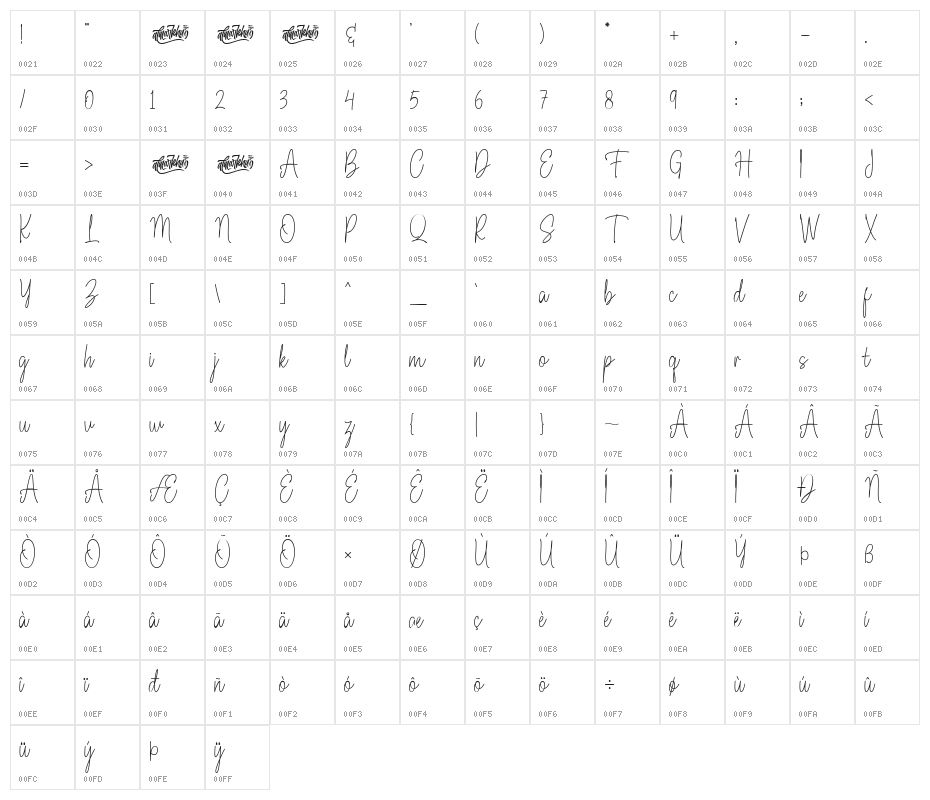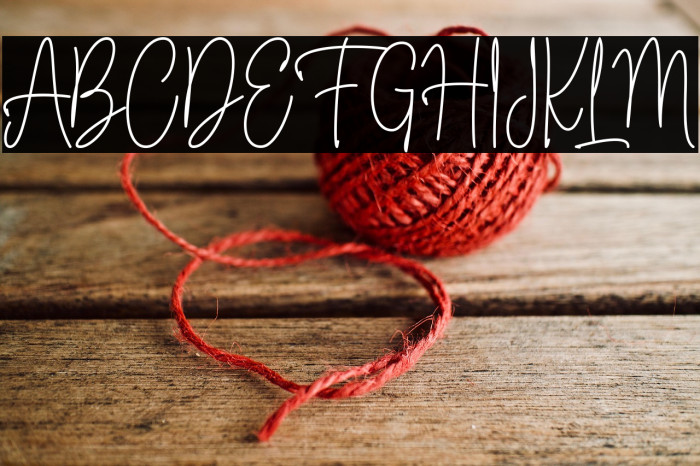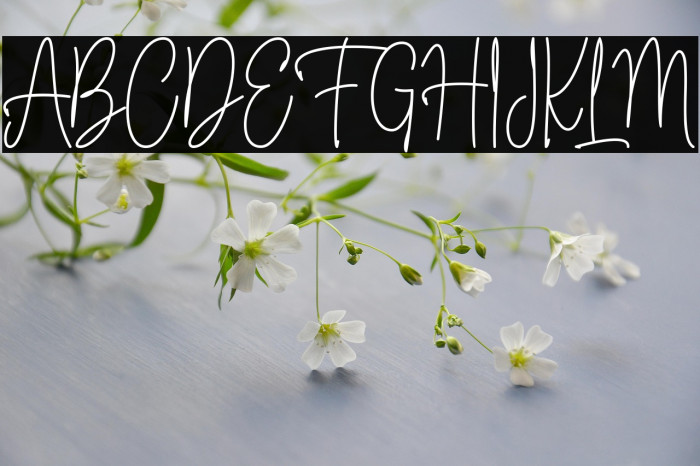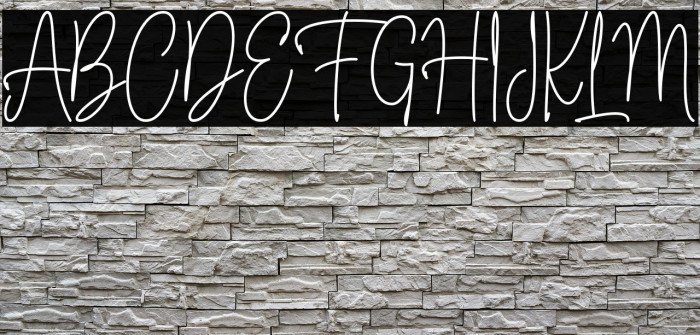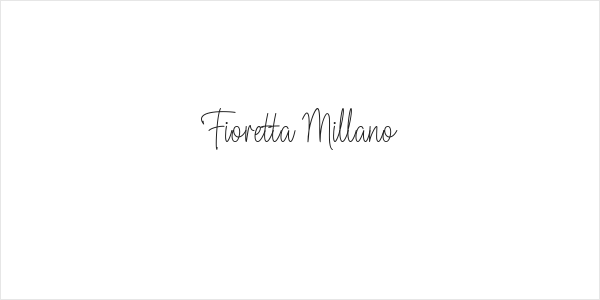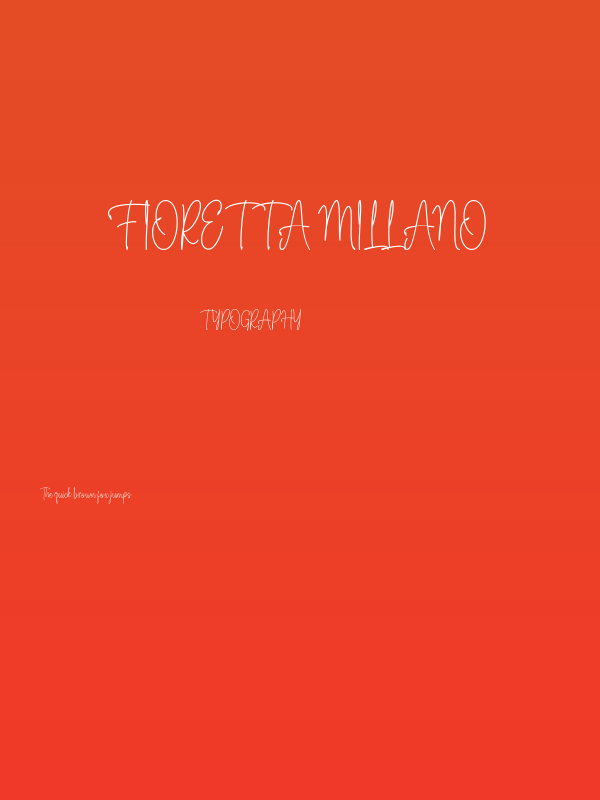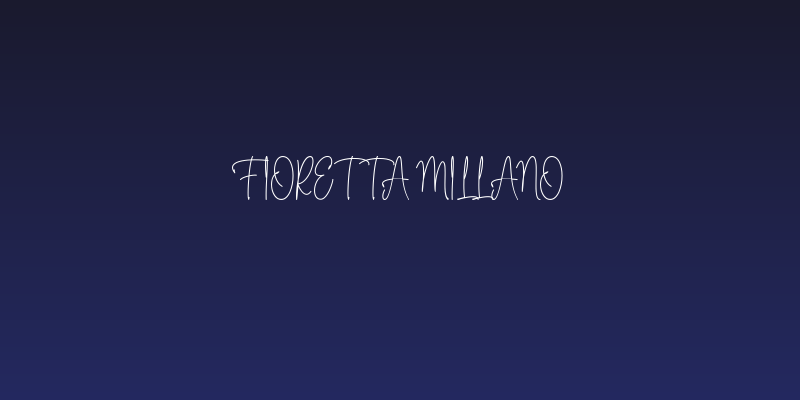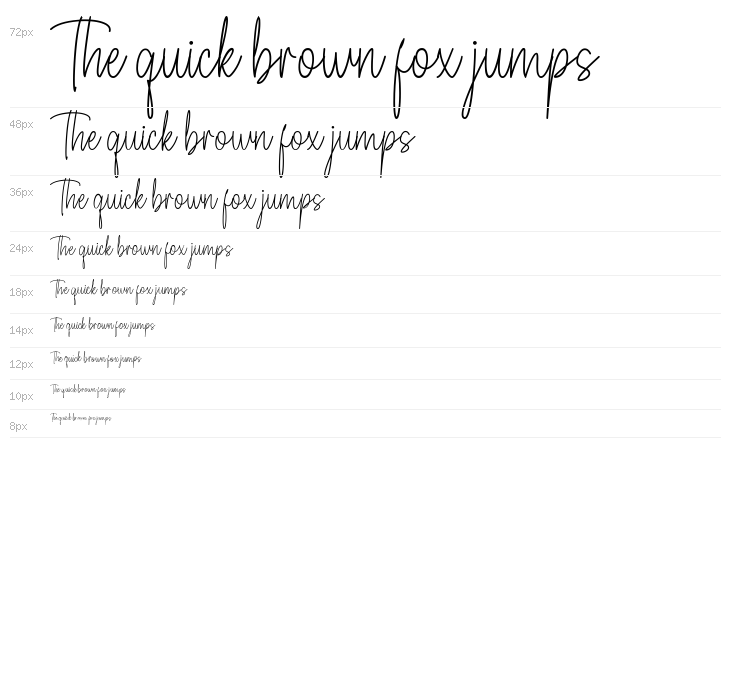
Fioretta Millano Font
Fioretta Millano Description
This font exhibits a flowing, handwritten style with elegant, elongated strokes. The uppercase letters are tall and slender, featuring a graceful, cursive flair that adds a touch of sophistication. The lowercase letters maintain a consistent style, with smooth curves and a slightly playful character. Numbers are clear and legible, matching the overall aesthetic. The special characters are creatively designed, complementing the font's artistic nature. This font's unique charm makes it suitable for projects that require a personal, artistic touch.
| Proposed Projects | Ideal for wedding invitations, greeting cards, personal branding, and artistic projects. |